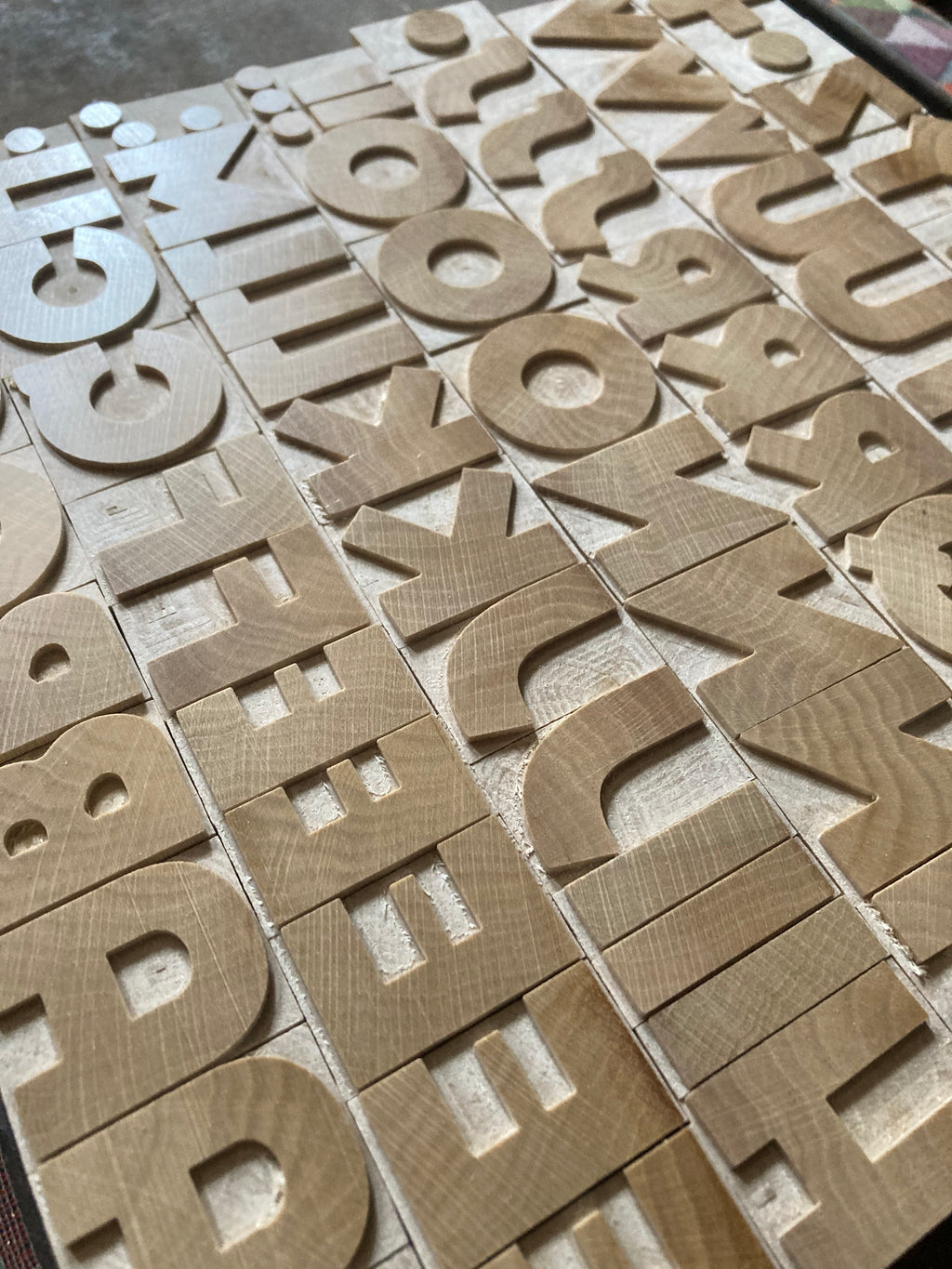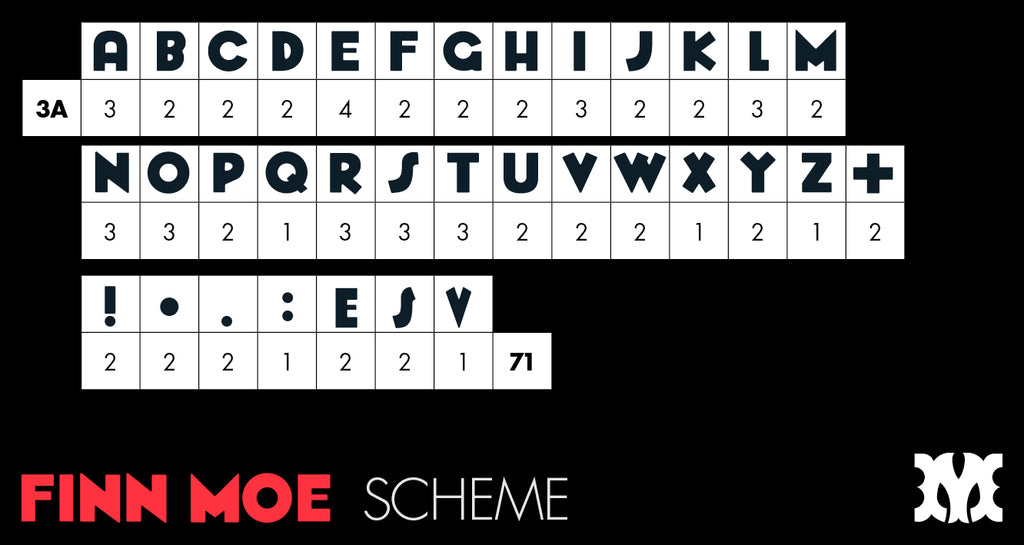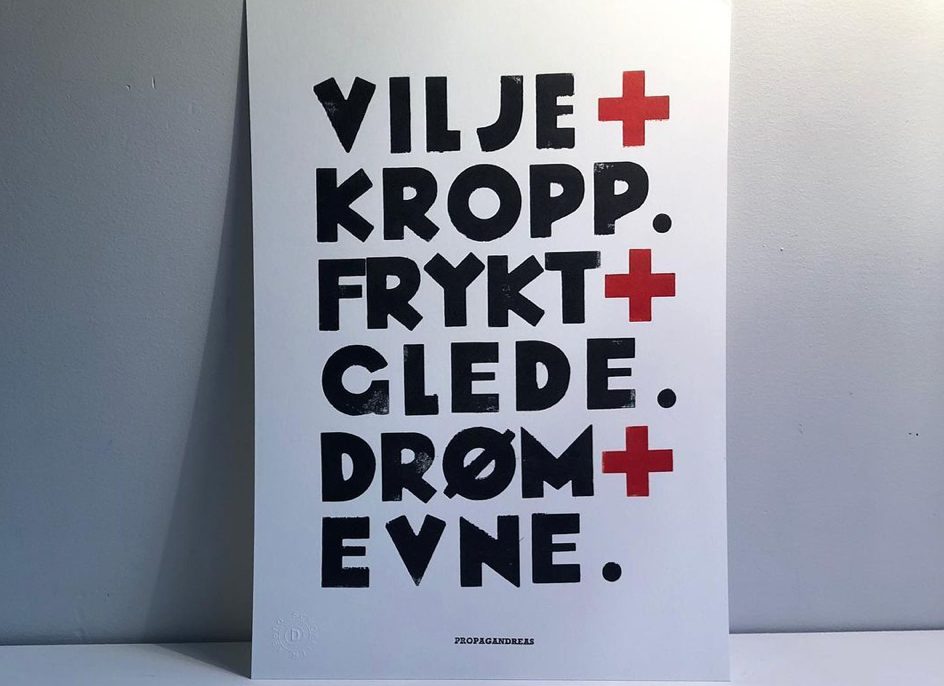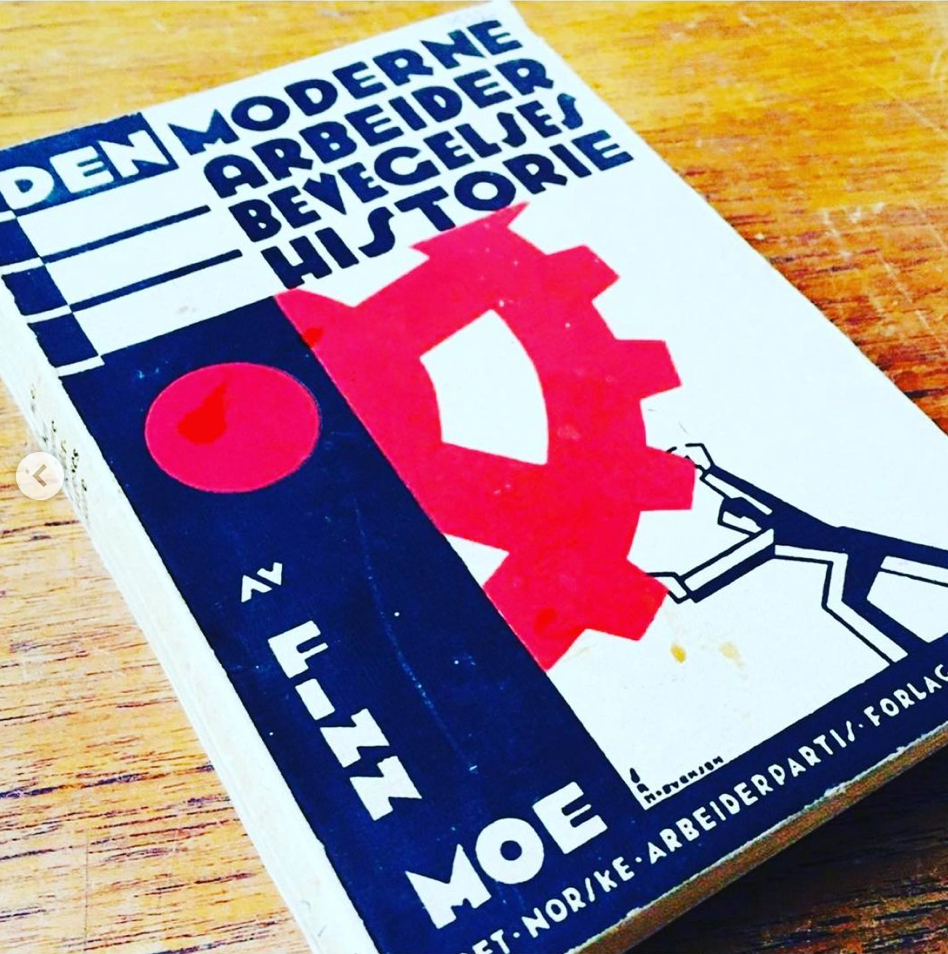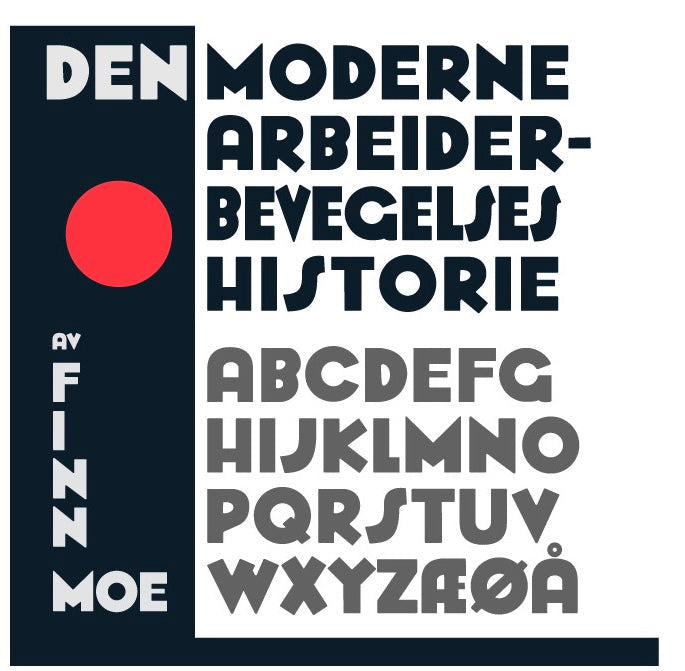
'Finn Moe Extra Bold' letterpress woodtype typeface
Introducing 'Finn Moe Extra Bold' - designed by Andreas Brekke and reimagined and redrawn from a 1930s book cover on the history of the labour movement.
10 line (42.3mm), 8 line (33.8mm) and 6 line (25.4mm) versions cut from end grain English hardwood using a combination of modern CNC technology and traditional hand woodworking tools (including an original printers saw), made to English type-high (0.918in or 23.3mm) within plus or minus 0.1mm tolerance, sealed with shellac and hand finished with a traditional polished printing surface.
Available as a 3A scheme - 71 letters. Please see scheme details on the right. There are alternatives for E, V and S.